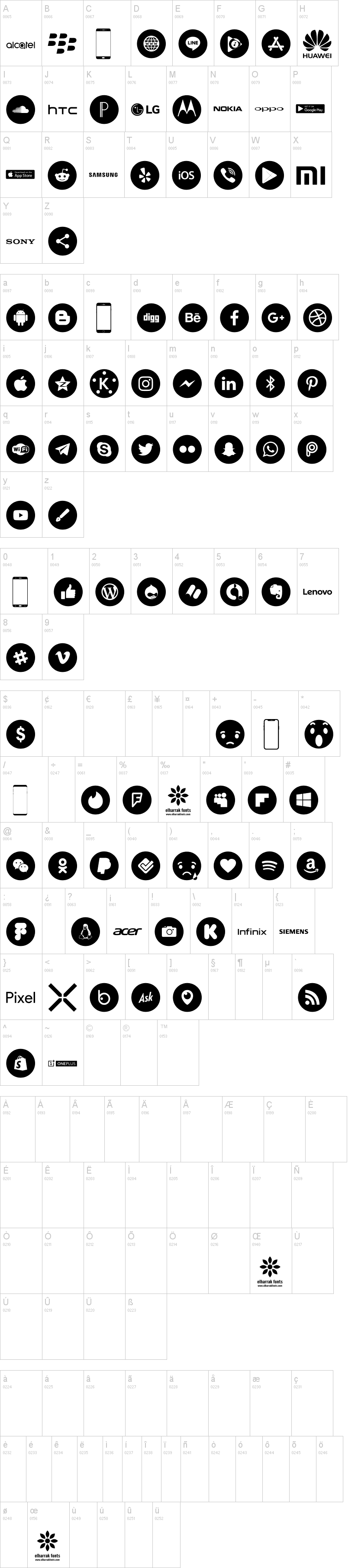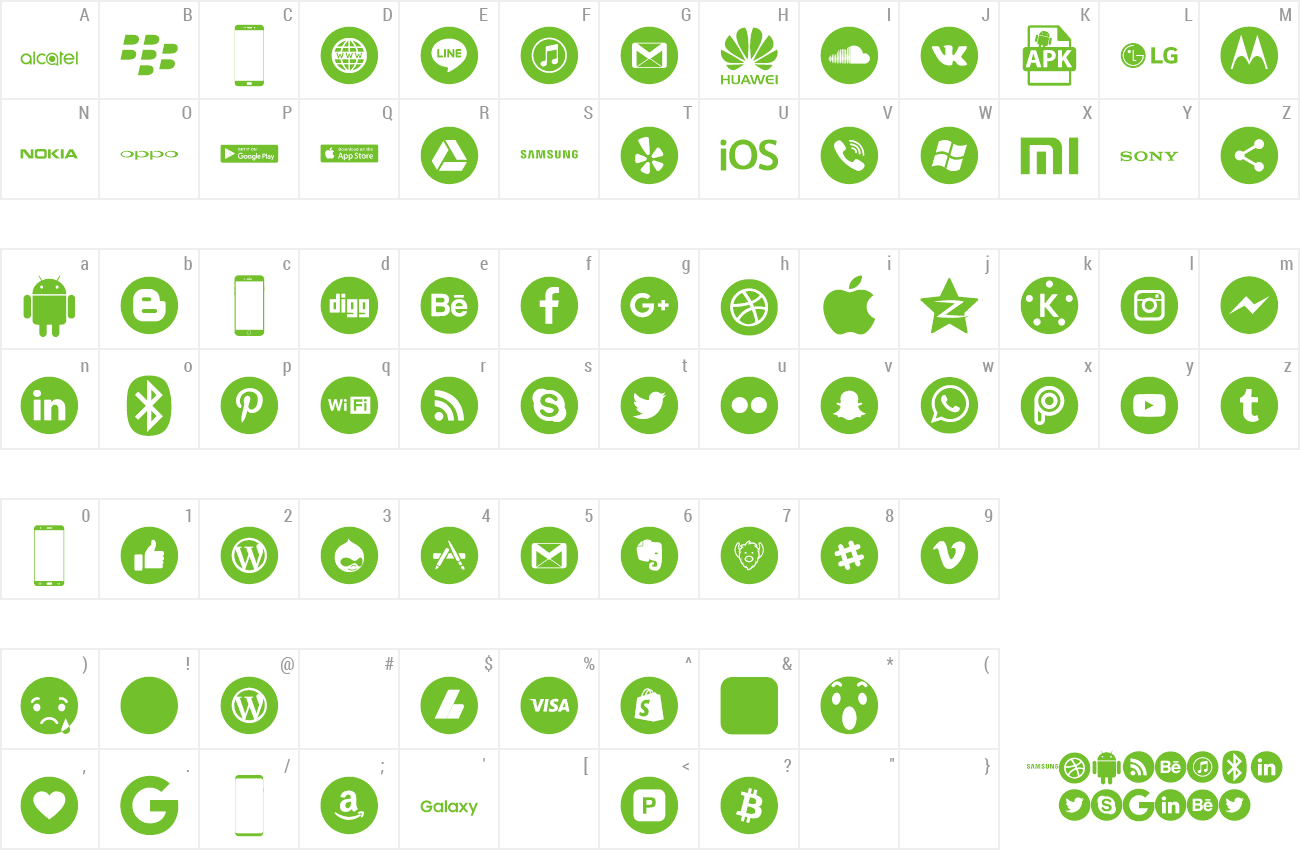
Smartphone Pro Font
Smartphone Pro Font - 88,989 downloads (10 yesterday) 2 comments shareware. This font is available for free. Web download smartphone color pro font by elharrak, a dingbat logo font with 345 glyphs. Web smartphone pro by elharrak.
88,989 downloads (10 yesterday) 2 comments shareware. Web smartphone pro by elharrak. Web download smartphone color pro font by elharrak, a dingbat logo font with 345 glyphs. This font is available for free.
88,989 downloads (10 yesterday) 2 comments shareware. Web smartphone pro by elharrak. This font is available for free. Web download smartphone color pro font by elharrak, a dingbat logo font with 345 glyphs.
Smartphone Pro Font View
This font is available for free. Web download smartphone color pro font by elharrak, a dingbat logo font with 345 glyphs. Web smartphone pro by elharrak. 88,989 downloads (10 yesterday) 2 comments shareware.
Smartphone Color Pro Font elharrak FontSpace
Web download smartphone color pro font by elharrak, a dingbat logo font with 345 glyphs. 88,989 downloads (10 yesterday) 2 comments shareware. This font is available for free. Web smartphone pro by elharrak.
Smartphone Color Pro Font
Web download smartphone color pro font by elharrak, a dingbat logo font with 345 glyphs. This font is available for free. 88,989 downloads (10 yesterday) 2 comments shareware. Web smartphone pro by elharrak.
Smartphone Pro Font Download
Web download smartphone color pro font by elharrak, a dingbat logo font with 345 glyphs. This font is available for free. 88,989 downloads (10 yesterday) 2 comments shareware. Web smartphone pro by elharrak.
88,989 downloads (10 yesterday) 2 comments shareware. Web smartphone pro by elharrak. Web download smartphone color pro font by elharrak, a dingbat logo font with 345 glyphs. This font is available for free.
Smartphone Pro Font elharrak FontSpace
This font is available for free. Web smartphone pro by elharrak. Web download smartphone color pro font by elharrak, a dingbat logo font with 345 glyphs. 88,989 downloads (10 yesterday) 2 comments shareware.
This font is available for free. Web download smartphone color pro font by elharrak, a dingbat logo font with 345 glyphs. Web smartphone pro by elharrak. 88,989 downloads (10 yesterday) 2 comments shareware.
Smartphone Pro Font FontSpace
This font is available for free. Web smartphone pro by elharrak. 88,989 downloads (10 yesterday) 2 comments shareware. Web download smartphone color pro font by elharrak, a dingbat logo font with 345 glyphs.
Smartphone Color Pro Font Designed by elharrak
Web smartphone pro by elharrak. Web download smartphone color pro font by elharrak, a dingbat logo font with 345 glyphs. 88,989 downloads (10 yesterday) 2 comments shareware. This font is available for free.
Web download smartphone color pro font by elharrak, a dingbat logo font with 345 glyphs. This font is available for free. Web smartphone pro by elharrak.